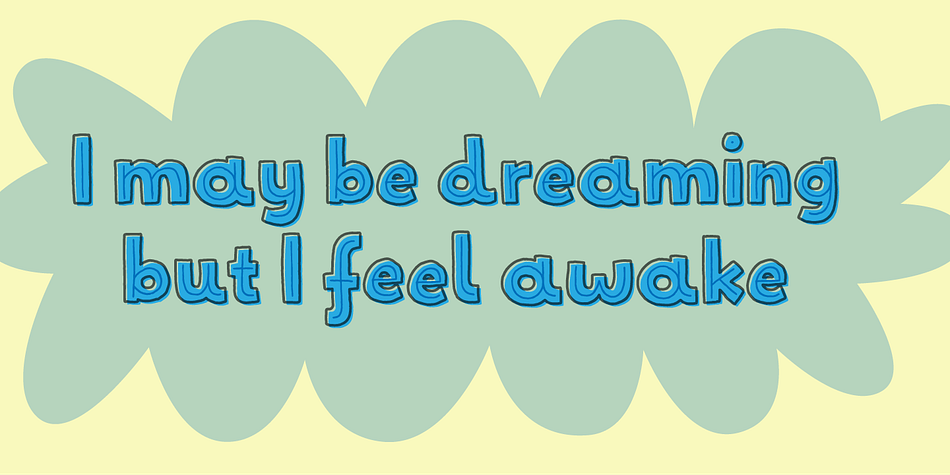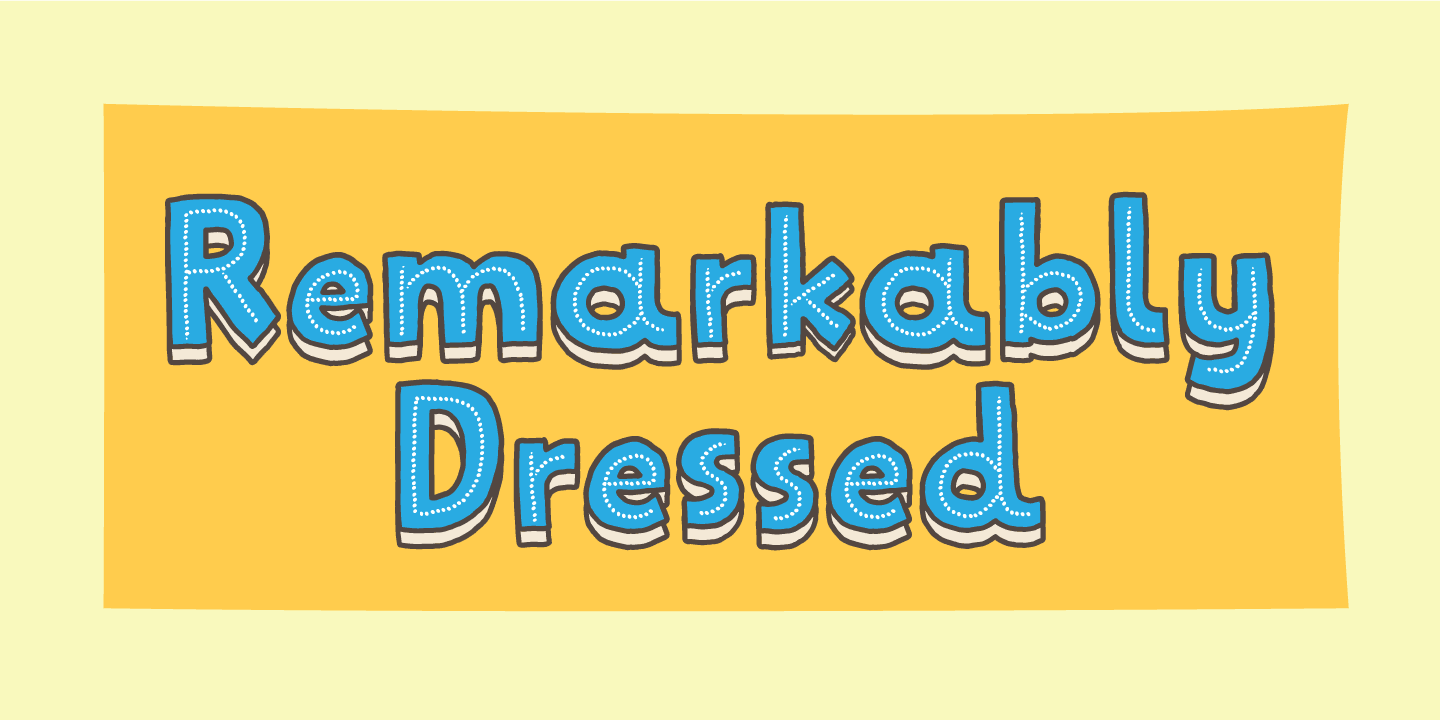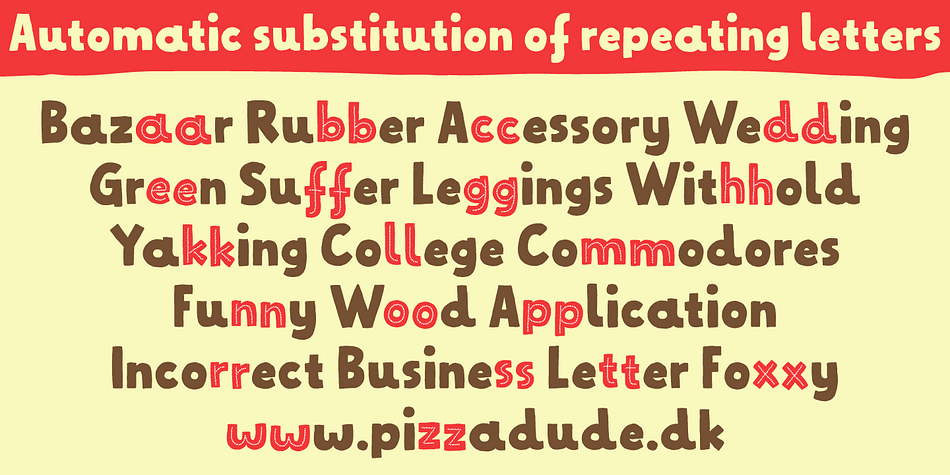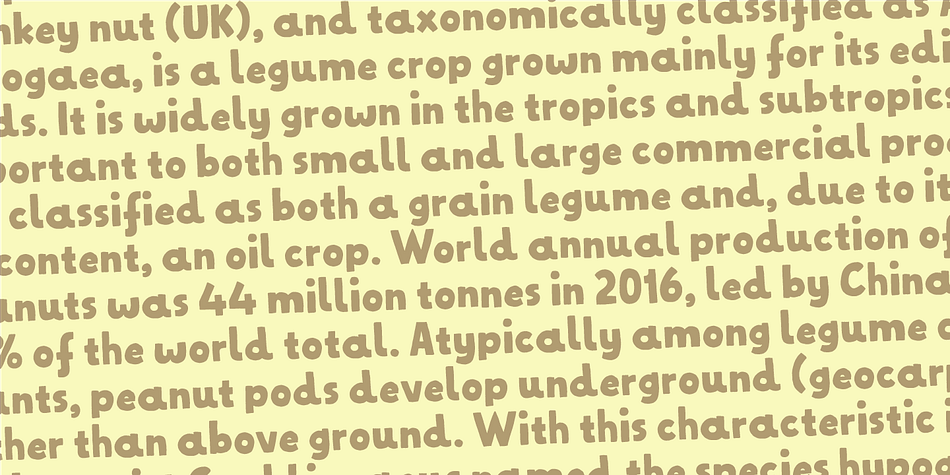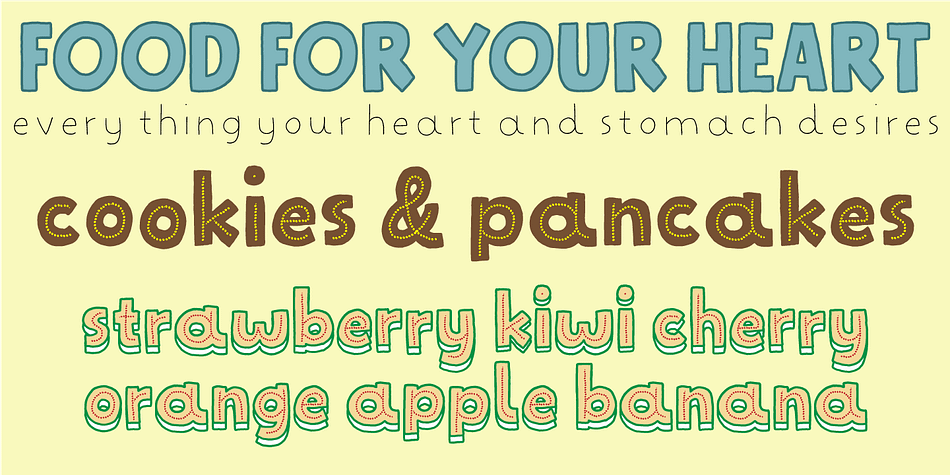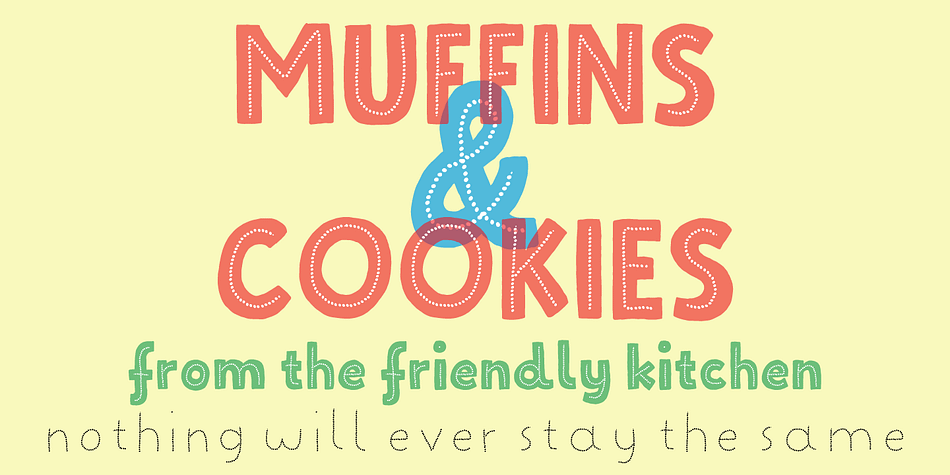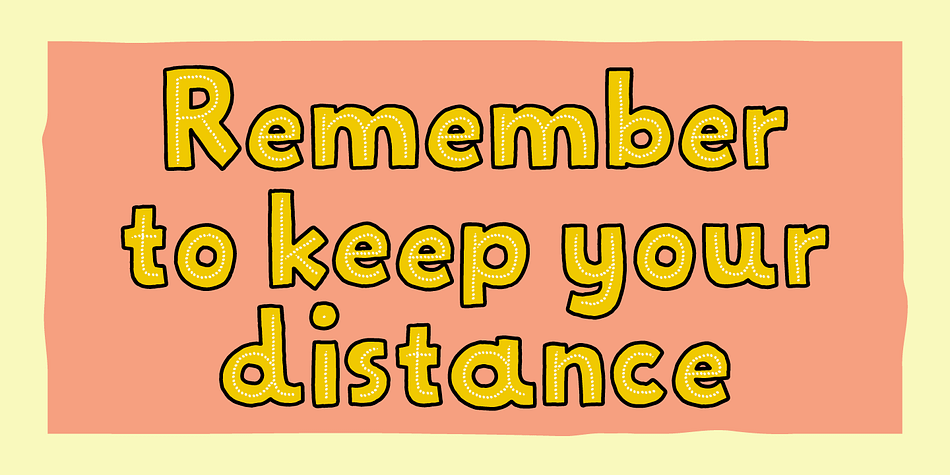
Designed by Jakob Fischer, Remarkably Dressed is a hand display font family. This typeface has eleven styles and was published by Bogstav.
Remarkably Dressed is designed by hand, with your book/comic/poster and alike in mind. There are several versions of the font that works well, using them as layers.